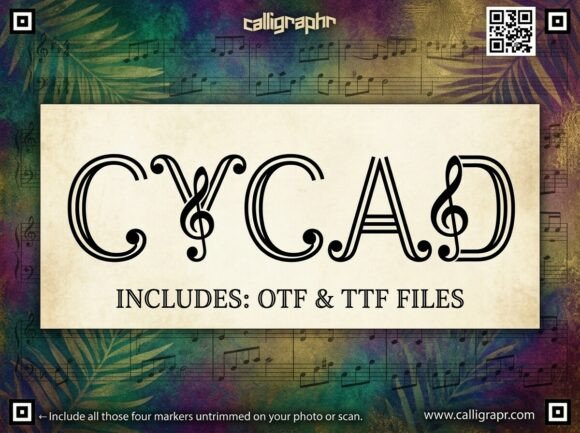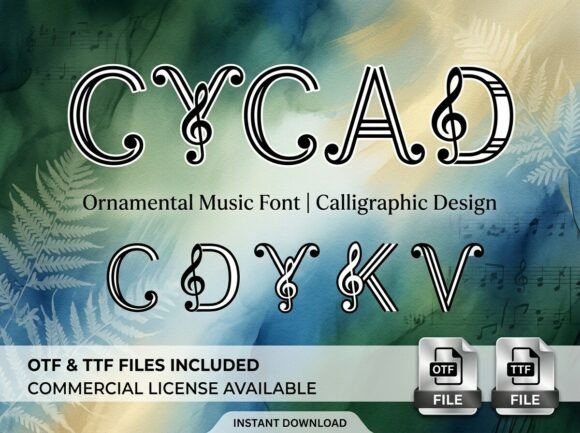
Introduction to Cycad Font
Harmonize your designs with Cycad, an elegant display typeface that captures a “melodic-and-symphonic” soul.
This font features sophisticated, multi-line letterforms characterized by integrated treble clefs and musical staff patterns With its rhythmic, parallel-line construction and timeless grace, Cycad is the premier choice for independent orchestra branding, classical concert posters, music academy logos, and high-impact “lyrical-and-refined” social media headers.